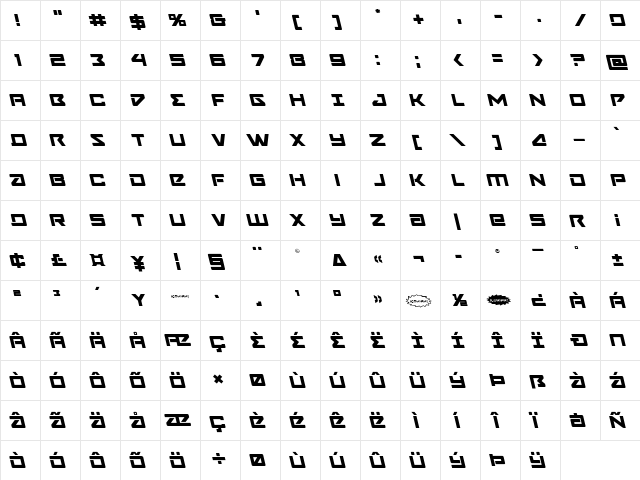
Navy Cadet Leftalic Italic Font Preview
Navy Cadet Leftalic Italic
Navy Cadet Leftalic Italic Font Details
Design Context for Navy Cadet Leftalic Typeface
Navy Cadet Leftalic takes a measured approach to typography — its balanced proportions and neutral character make it a reliable workhorse for both digital and print work. The slanted form adds forward momentum and visual energy.
Pro Tip: Try Navy Cadet Leftalic for annotation and caption copy alongside an upright companion — the contrast in angle creates a dynamic but ordered typographic system.